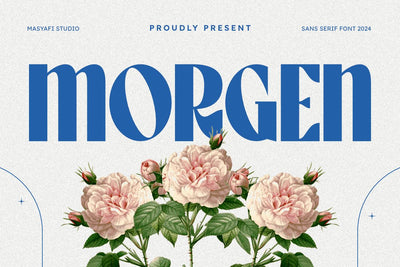
Morgen - Vintage Sans Serif Font
Morgen is a grotesk sans serif font with a vintage style. font inspired by vintage minimalist style typography. This font is very suitable for branding, logos, marketing, social media, quotes, business cards, printing, web labels and anything that smells elegant, classic, vintage, minimalist and retro.